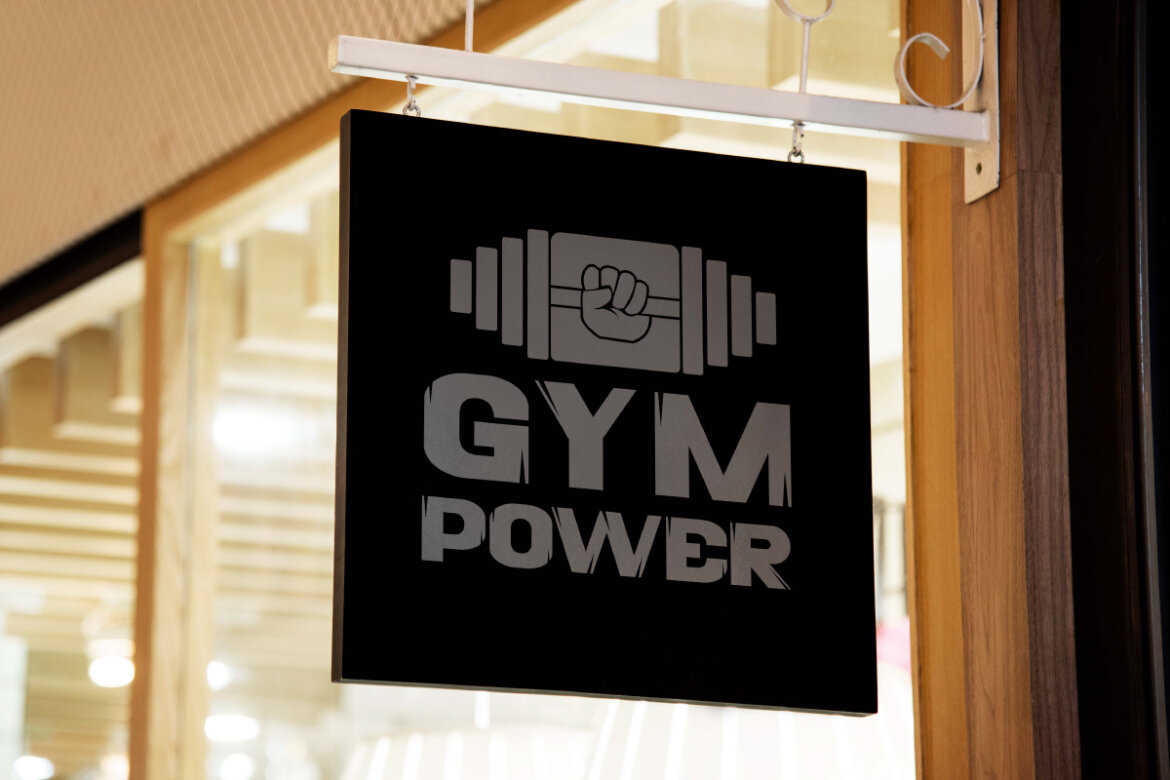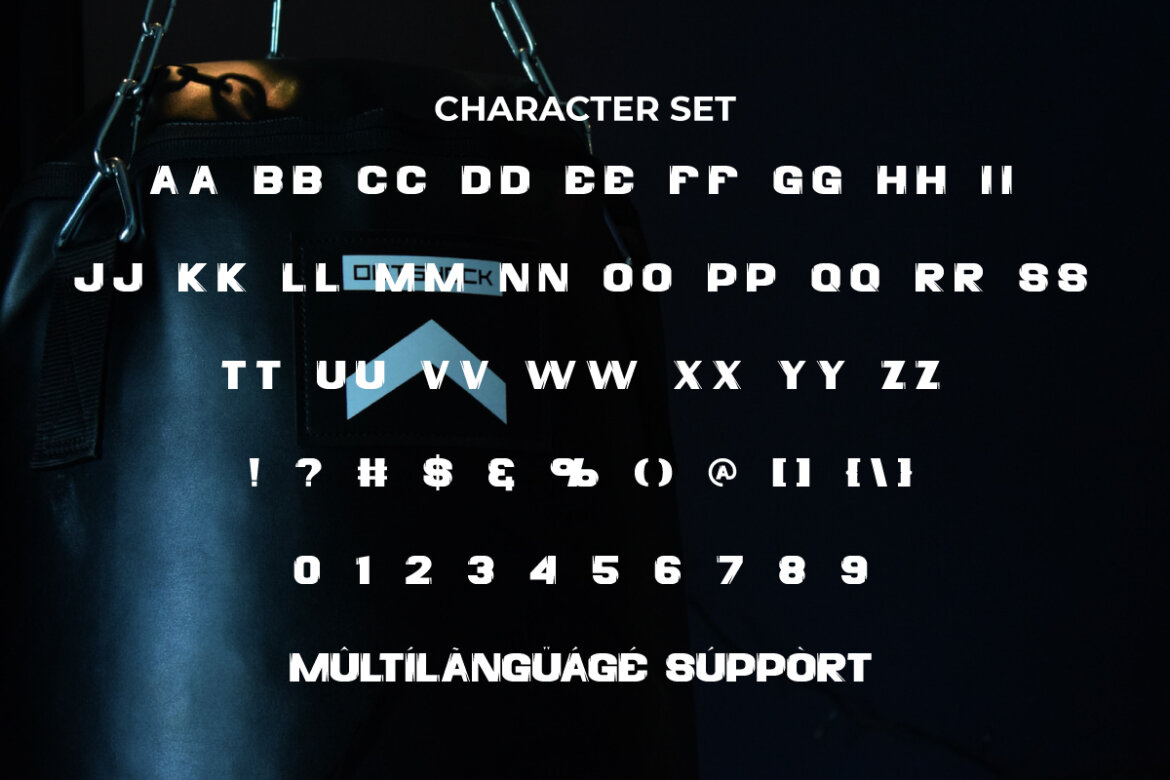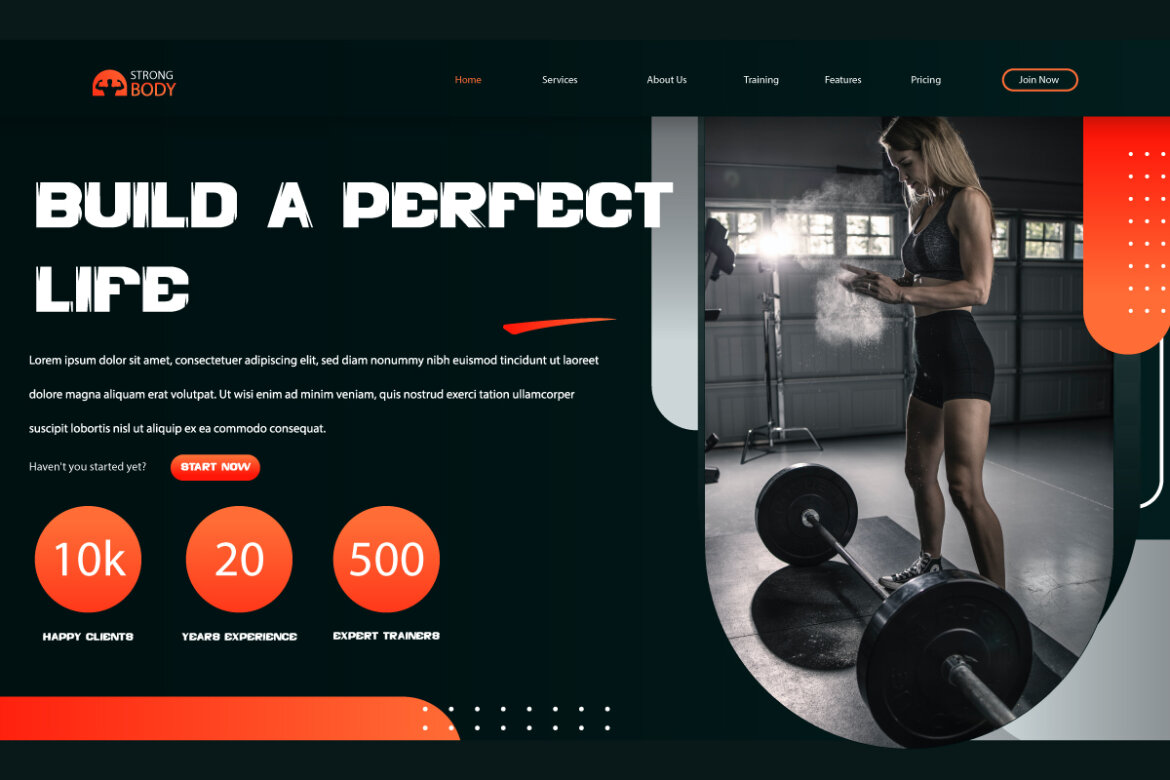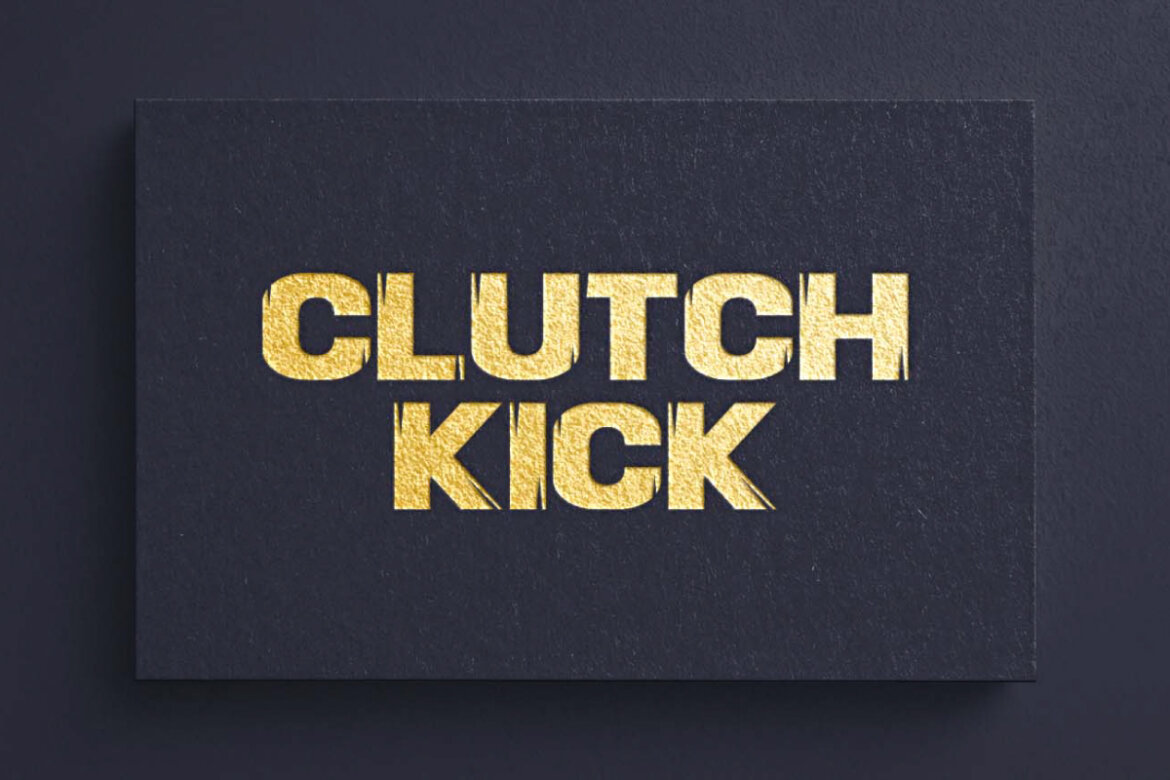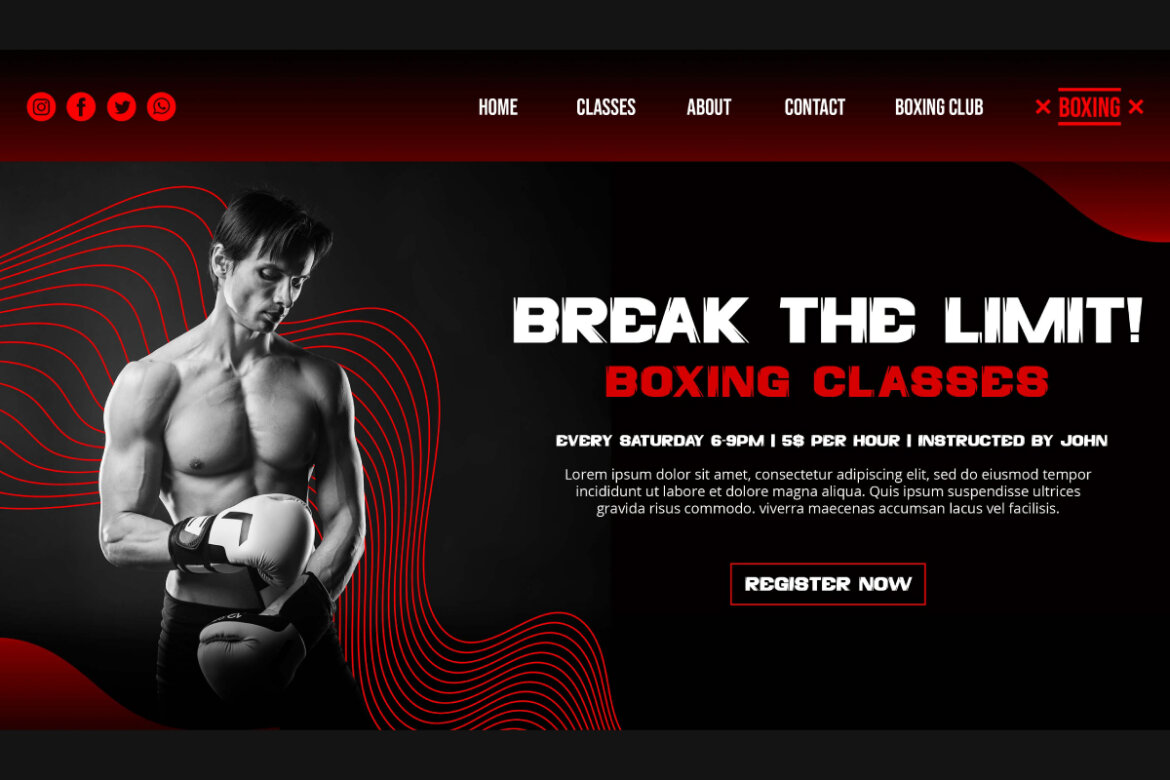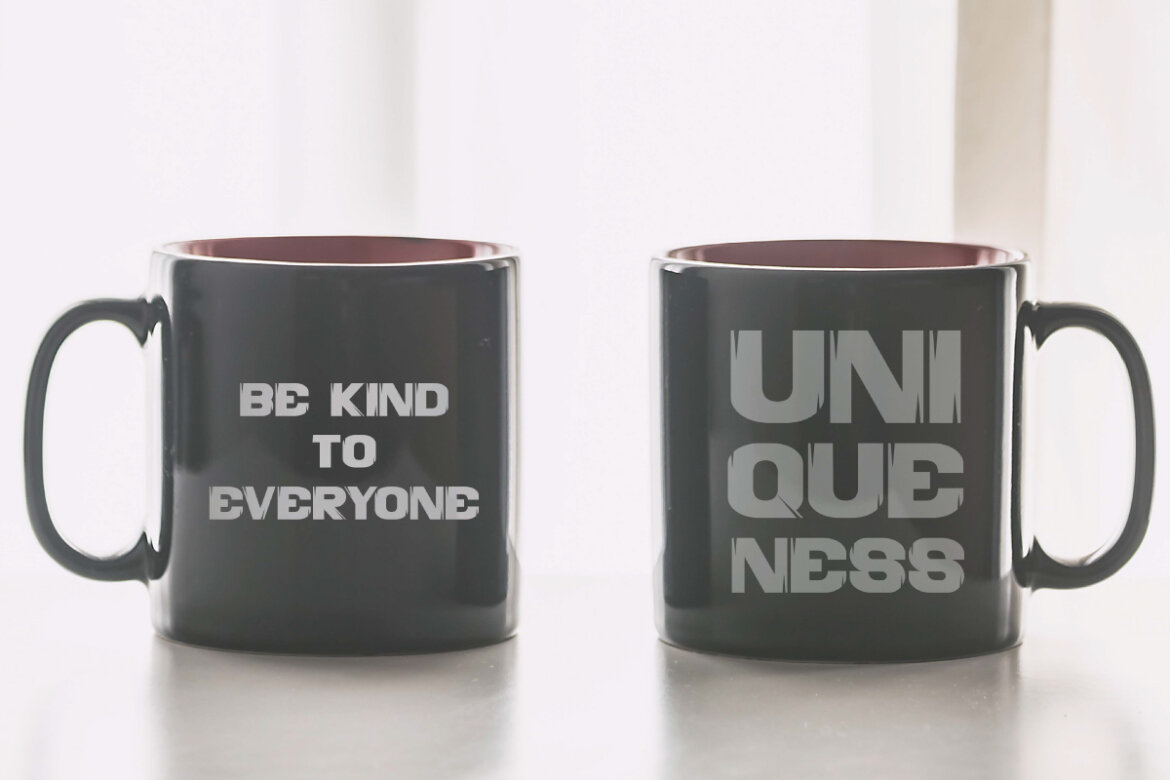
Clutch Kick FREE Font
ClutchKick
Clutch Kick Font is a powerful sporty display font with all capital letters in high contrast. It’s a sans serif font that has stroked edges on each character and is inspired by heritage motorbike culture. This powerful typeface is perfect for apparel, cafeteria, crockery, film, fitness center, graphic design, menswear, movie, photography, race, and anything that requires a masculine sports look.
Clutch Kick Font comes with a full set of ALL CAPS for Uppercase and Lowercase letters, Number, Punctuation, and Symbol. It introduces the sans serif sports display font collection type. Intended for display purposes so it’s perfect for adding a modern retro feel to any design. With its courageous and dynamic character, it is an ideal choice for branding materials, logos, posters, print, stationery, t-shirt, type badges, and more.